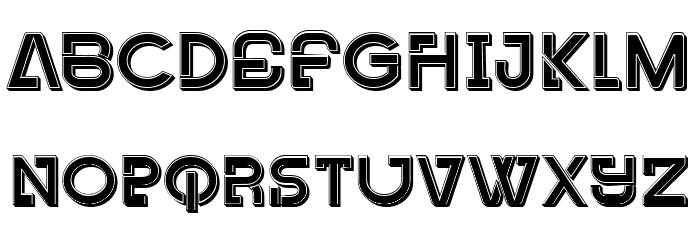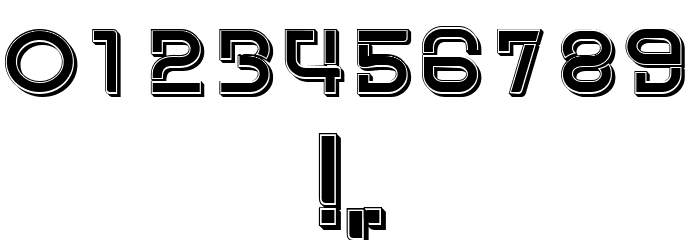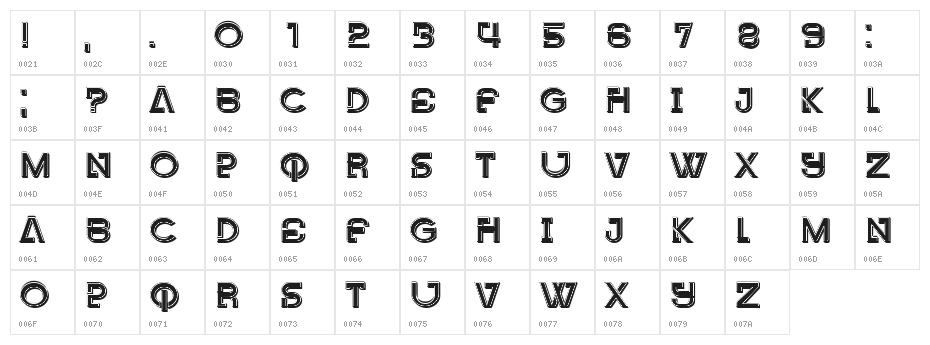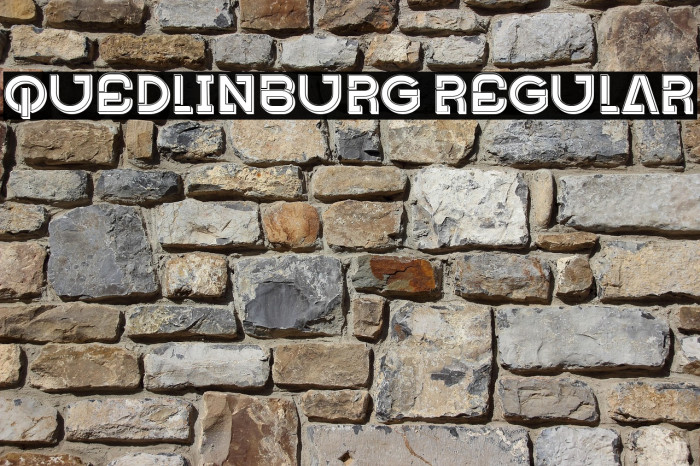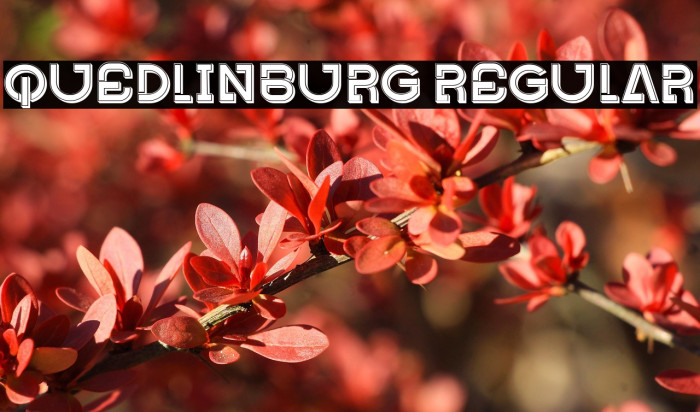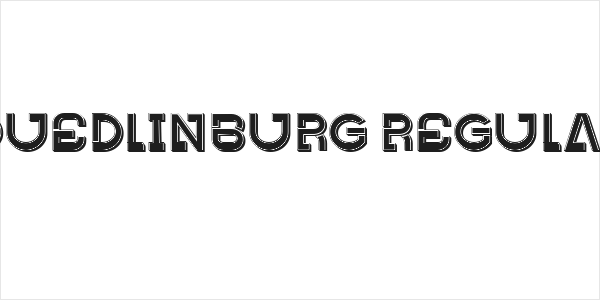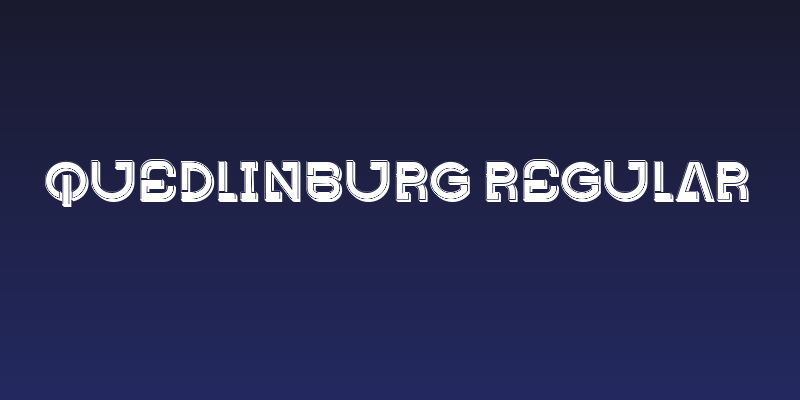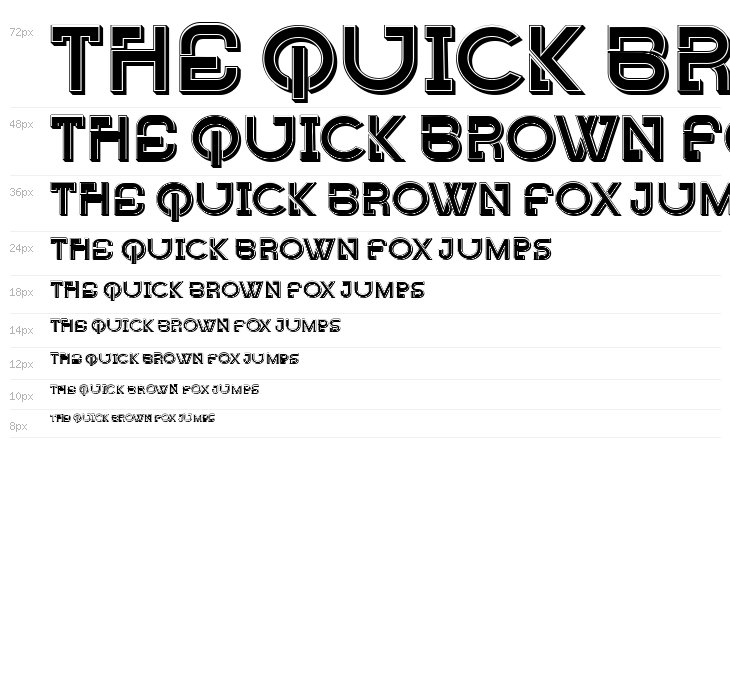
Quedlinburg Regular Font
This font features a bold and geometric design with a distinct industrial feel. The characters are constructed with thick, uniform strokes and incorporate unique cut-out elements that add a modern, futuristic touch. The uppercase letters exhibit a strong presence, making them ideal for impactful headlines. The numerals and special characters maintain the same bold style, ensuring consistency across all text elements. The overall design is both eye-catching and versatile, suitable for various creative applications.
A bold, geometric font with an industrial and modern aesthetic.
- Font: Quedlinburg Regular
- Proposed Projects: Ideal for branding, posters, and digital media where a strong, modern look is desired.